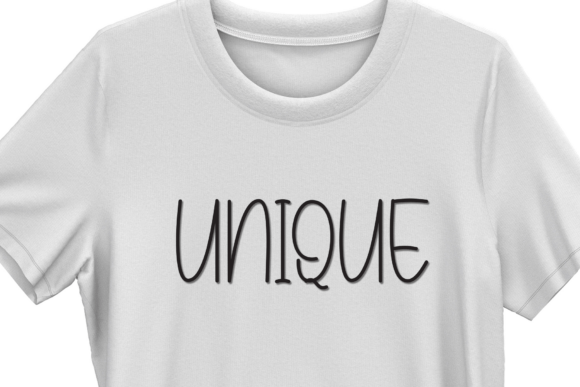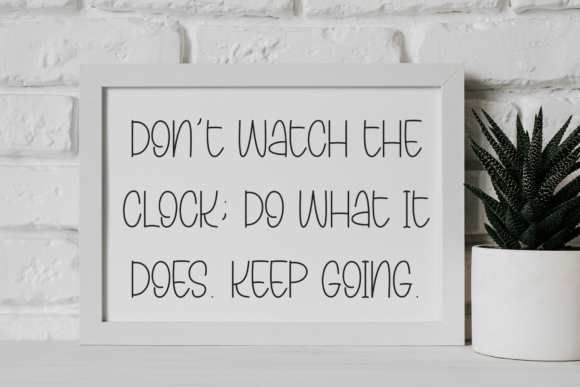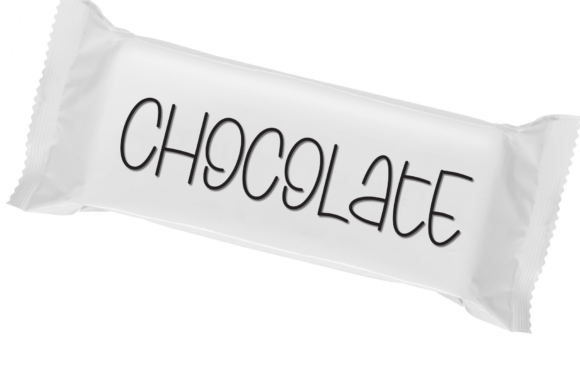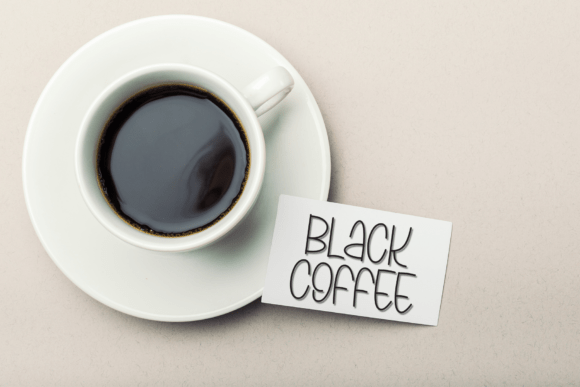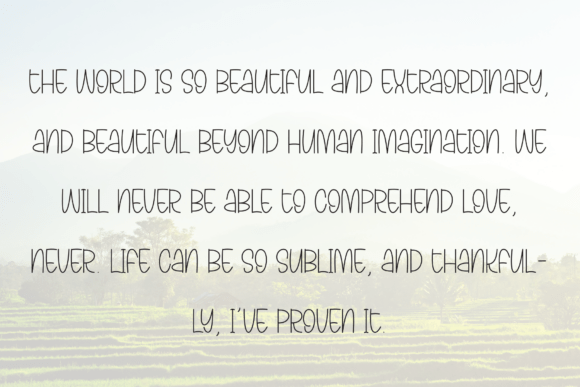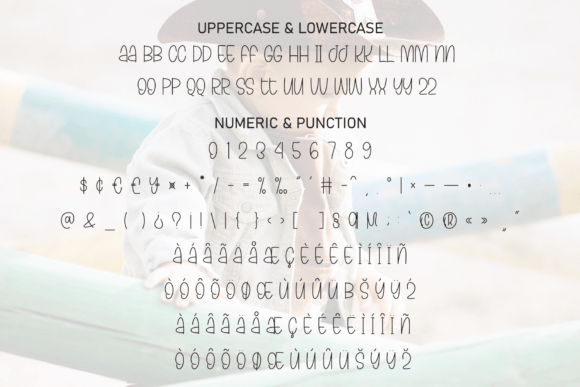
Baby Cowboy Font: Add a Touch of Whimsy to Your Designs
Are you looking for a font that can add a playful dash to your creative projects? Look no further than the Baby Cowboy Font! This delightful handwritten display font is designed to bring a soulful whimsy and friendly vibe to any design, making it perfect for a variety of applications.
The Charm of Baby Cowboy Font
The Baby Cowboy Font is a unique and charming font that is sure to capture the hearts of designers and crafters alike. Its sweet charisma is perfect for generating a playful dash to your wedding invitations, greeting cards, or other design elements. With its cute and entertaining flair, this font will subtly sprinkle joy wherever it is used, masterfully introducing a fun element to your design that simply cannot be overlooked.
The Baby Cowboy Font is a versatile font that can be used in a variety of creative projects. Whether you’re designing wedding invitations, greeting cards, or other paper crafts, this font is sure to add a touch of whimsy and personality to your designs. Its friendly and approachable vibe makes it perfect for projects that require a personal touch.
Key Features of Baby Cowboy Font
- Handwritten display font: The Baby Cowboy Font is a handwritten display font that is designed to bring a personal touch to your designs.
- Soulful whimsy and friendly vibes: This font is designed to bring a soulful whimsy and friendly vibe to any design, making it perfect for projects that require a playful touch.
- Cute and entertaining flair: The Baby Cowboy Font has a cute and entertaining flair that is sure to add a touch of joy to your designs.
- Perfect for wedding invitations and greeting cards: This font is perfect for wedding invitations, greeting cards, and other paper crafts that require a personal touch.
Tips for Using Baby Cowboy Font
- Use it for headings and titles: The Baby Cowboy Font is perfect for headings and titles, where its playful and whimsical vibe can really shine.
- Pair it with other fonts: Try pairing the Baby Cowboy Font with other fonts to create a unique and interesting look.
- Experiment with different colors: The Baby Cowboy Font looks great in a variety of colors, so don’t be afraid to experiment and find the perfect color for your design.
The Baby Cowboy Font is a unique and charming font that is sure to add a touch of whimsy and personality to your designs. With its cute and entertaining flair, this font is perfect for a variety of creative projects, from wedding invitations and greeting cards to paper crafts and other DIY projects. So why not give it a try and see how it can add a playful dash to your designs?
- What is the Baby Cowboy Font?: The Baby Cowboy Font is a handwritten display font designed to bring a soulful whimsy and friendly vibe to any design.